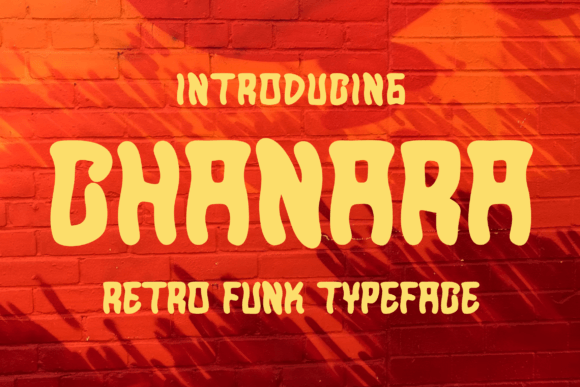
Chanara: A Funky Retro Font for Groovy Designs
Fonts are more than just letters—they’re the heartbeat of visual communication. When you choose the right typeface, it can transform a simple design into something that resonates with energy and character. Enter Chanara, a funky retro display font that brings a splash of vintage charm to modern creative projects. Whether you're designing a poster, crafting digital content, or building a brand identity, Chanara adds an unmistakable flair that turns heads and sparks emotion.
What Makes Chanara Unique?
Chanara is a bold, playful typeface with roots in mid-century design. It features exaggerated serifs, uneven spacing, and a distinct rhythm that mimics hand-drawn lettering. This combination gives it a nostalgic yet contemporary feel, making it versatile enough to fit both classic and modern aesthetics. The font’s dynamic curves and quirky details set it apart from standard sans-serif or serif fonts, offering designers a unique tool to express personality and creativity.
Why Choose Chanara for Your Projects?
- Visual Impact: Chanara commands attention, making it ideal for headlines, logos, and branding elements where presence matters most.
- Versatility: Though it has a strong retro vibe, its adaptability allows it to work across various industries—from music festivals to fashion brands.
- Emotional Resonance: The font evokes feelings of nostalgia, fun, and authenticity, which can help connect your audience on a deeper level.
Where to Use Chanara: Creative Applications
Every font tells a story, and Chanara is no exception. Here are some real-world applications where this font shines:
1. Branding and Logos
If your brand is all about individuality and style, Chanara could be the perfect match. Its retro appeal works well for businesses like vintage stores, boutique cafes, or independent record shops. Pair it with minimalist sans-serif fonts in body text to maintain readability while keeping the visual punch.
2. Event Posters and Flyers
Looking to create a groovy event poster? Chanara adds instant charisma to music events, art exhibitions, or themed parties. Think psychedelic rock concerts, retro car shows, or local theater performances—this font helps set the tone before anyone even reads the copy.
3. Social Media Content
In a world where attention spans are short, standing out online is crucial. Use Chanara for eye-catching captions, headers, or promotional graphics on platforms like Instagram, Facebook, or Pinterest. It works especially well when combined with bright colors and geometric shapes to create a cohesive theme.
4. Print and Packaging Design
For product packaging, especially those targeting younger demographics or niche markets, Chanara can inject a sense of fun and originality. From coffee mugs to t-shirts or album covers, it adds a tactile, almost handcrafted quality that digital fonts often lack.
5. Educational Materials and Workshops
Designing materials for workshops, courses, or educational campaigns doesn’t mean sacrificing style. Use Chanara for titles and headings in flyers, brochures, or classroom posters to make learning environments feel engaging and approachable.
How to Adapt Chanara for Different Goals
One of the best parts about using Chanara is how easily it can be tailored to suit different needs. Here's how various professionals might use it effectively:
Designers: Play with Contrast
As a designer, consider how to balance Chanara’s boldness with subtler elements. For example, pair it with monochrome backgrounds or muted color palettes to let the font pop without overwhelming the viewer. You can also experiment with layering effects or adding texture overlays to give it an even more vintage look.
Marketers: Use for Emotional Storytelling
Marketing teams can leverage Chanara to evoke specific emotions. If your campaign is centered around nostalgia or rebellion, this font aligns perfectly. Use it sparingly in key messaging points to highlight your brand’s voice without compromising clarity.
Bloggers and Publishers: Add Visual Interest
Bloggers and content creators looking to break up long articles with styled headings should consider Chanara for section titles. Just ensure the rest of the typography remains clean and easy to read—this font is best used as a decorative accent rather than body copy.
Entrepreneurs and Small Business Owners: Build a Memorable Identity
For entrepreneurs, especially those launching lifestyle or creative brands, Chanara can become a signature element of their identity. It’s not just about looking cool; it’s about creating a memorable first impression. Consider using it in taglines, business cards, or website headers to reinforce your brand’s vibe.
Freelancers and Hobbyists: Experiment Without Limits
Freelancers and hobbyists have the freedom to explore. Try using Chanara in personal projects like zines, greeting cards, or custom illustrations. It’s also great for mockups and concept designs, helping you visualize how it would perform in real-world scenarios.
Remember, the goal of any design is to communicate clearly while leaving a lasting impression. With Chanara, you’ve got a tool that does both. So go ahead, add it to your next project, and see how it transforms your visuals into something truly groovy.